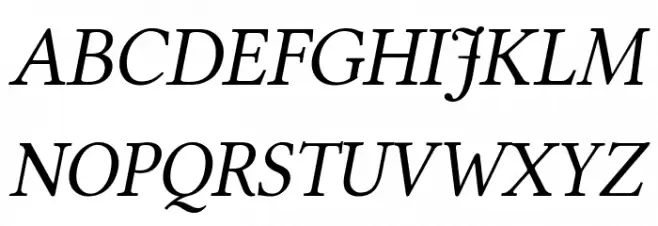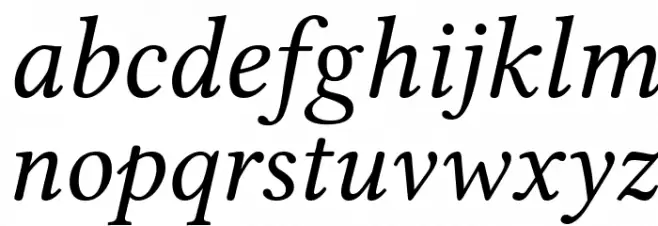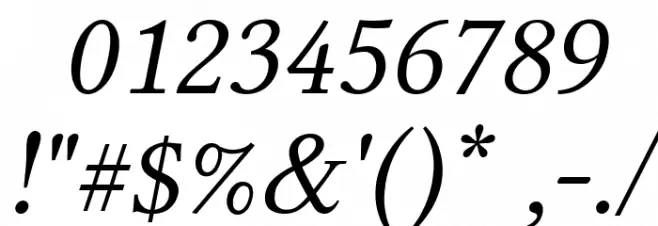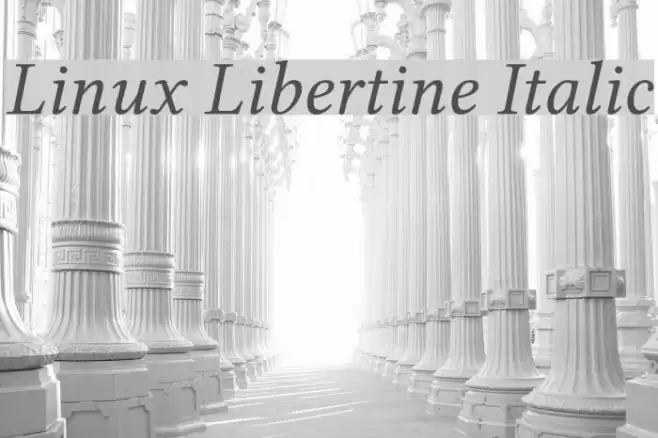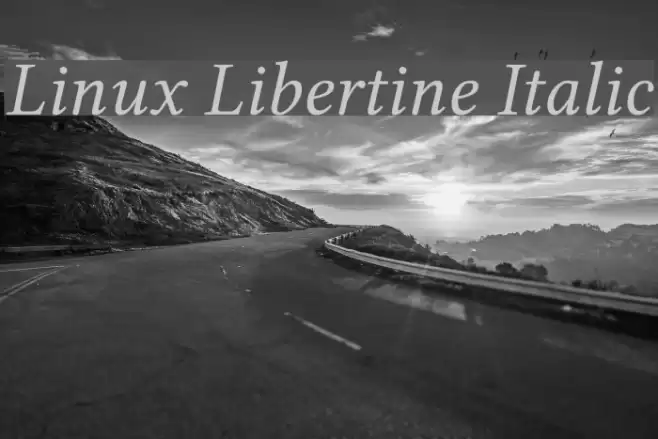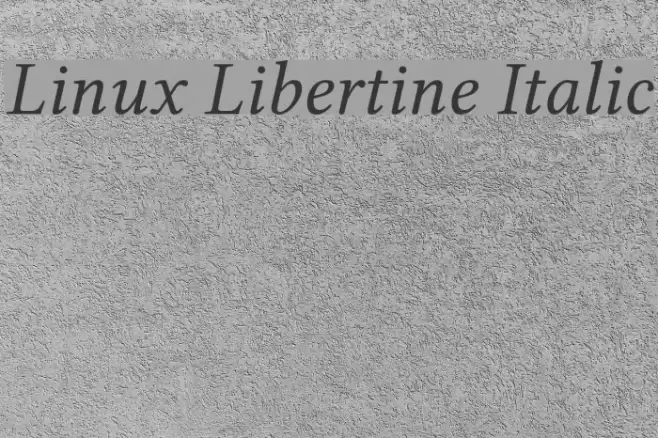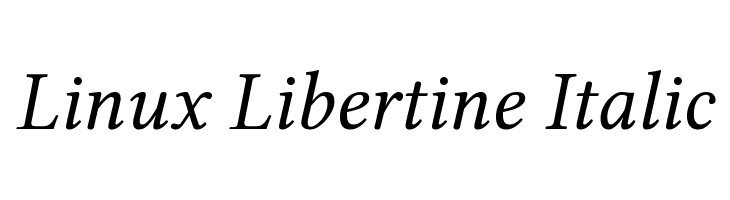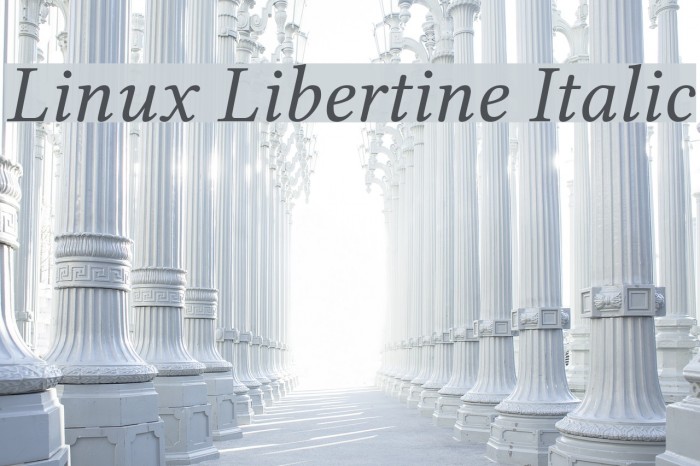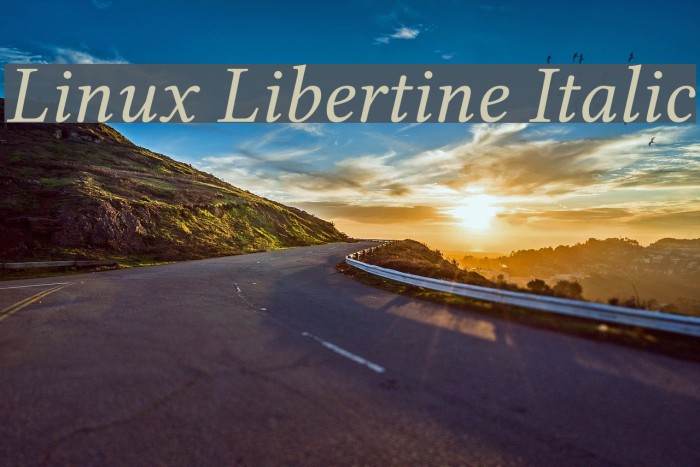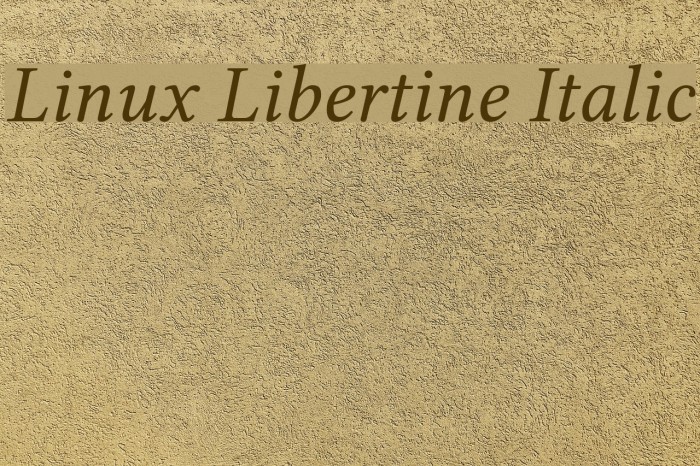
Linux Libertine Italic
This font exhibits a classic and elegant style with a slight slant, characteristic of italic typefaces. The serifs are well-defined, providing a traditional and sophisticated appearance. The strokes vary in thickness, offering a medium contrast that enhances readability while maintaining a refined aesthetic. The characters are proportionally spaced, ensuring a balanced and harmonious look across both uppercase and lowercase letters. The numerals are clear and distinct, complementing the overall design. Special characters are crafted with attention to detail, fitting seamlessly into the font's cohesive style.
An elegant italic serif font with medium contrast and classic styling.
- Proposed Projects: Ideal for formal documents, book publishing, elegant invitations, and sophisticated branding projects.
- Category: Serif
- Overall Style: Classic
- Use Case: Body text, Headlines, Formal documents